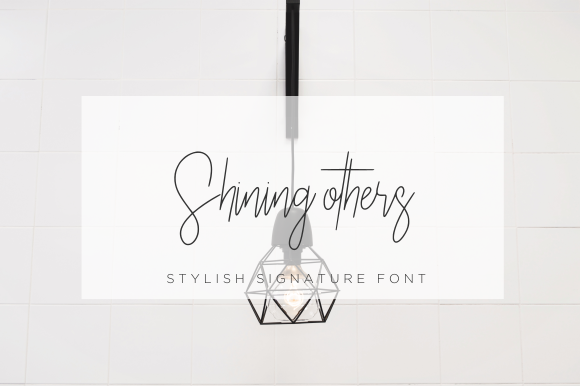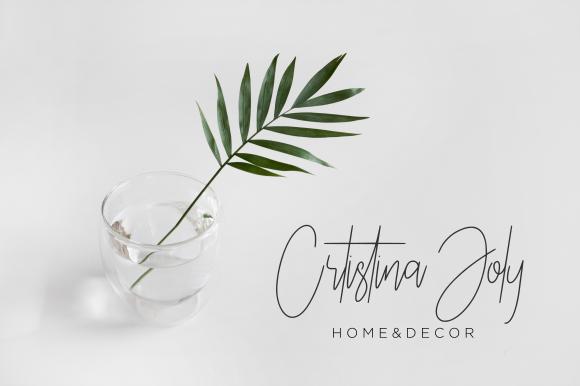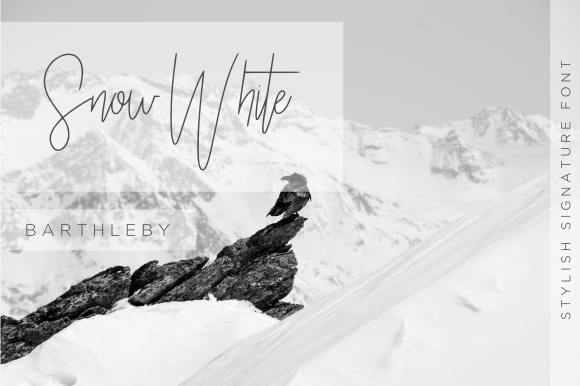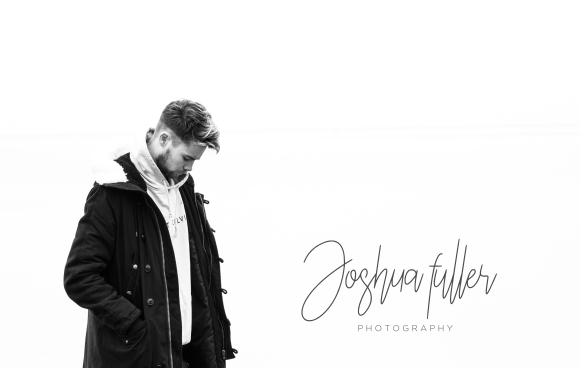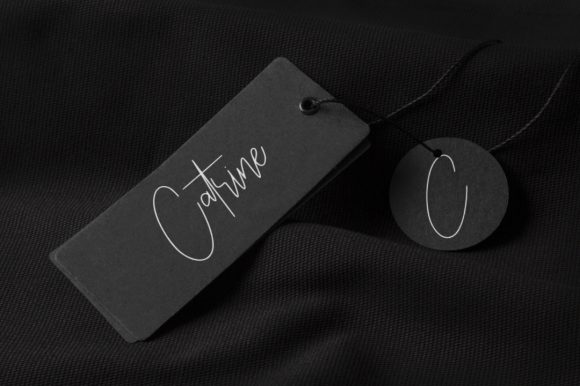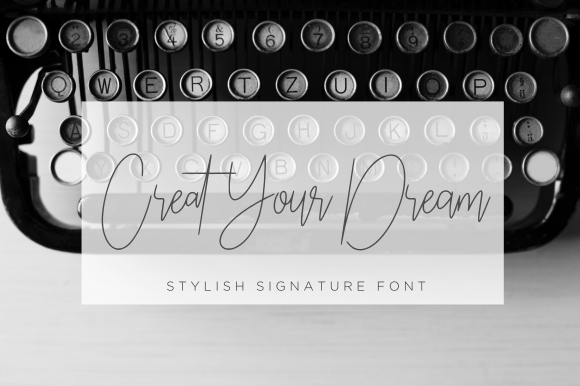
Discover the Elegance of Attaliand Font: A Beautiful Signature Typeface
Are you a designer or crafter looking for a font that exudes elegance and sophistication? Look no further than Attaliand Font, a stunning signature typeface that is sure to elevate your designs to the next level. With its clean look and exceptional readability, Attaliand Font is the perfect choice for a wide range of design projects.
What is Attaliand Font?
Attaliand Font is a beautiful signature typeface that has been carefully crafted to provide a unique and stylish touch to your designs. Its clean and sleek lines make it perfect for use in a variety of design applications, from logos and branding to invitations and packaging.
Key Features of Attaliand Font
So, what makes Attaliand Font so special? Here are just a few of its key features:
- Clean Look: Attaliand Font boasts a clean and minimalist design that makes it easy to read and understand.
- Good Readability: The font’s exceptional readability makes it perfect for use in body text, headings, and titles.
- Elegant Style: Attaliand Font has an undeniably elegant style that is sure to add a touch of sophistication to your designs.
- Versatile: This font is perfect for use in a wide range of design applications, from digital designs to print materials.
Why Choose Attaliand Font?
There are many fonts available to designers and crafters, but Attaliand Font stands out from the crowd for several reasons:
- Unique Style: Attaliand Font has a unique and distinctive style that will set your designs apart from the competition.
- Ease of Use: The font is incredibly easy to use and can be easily integrated into your design workflow.
- High-Quality: Attaliand Font is a high-quality font that is designed to provide exceptional results in your designs.
How to Use Attaliand Font in Your Designs
Using Attaliand Font in your designs is incredibly easy. Here are a few tips to get you started:
- Pair it with Other Fonts: Attaliand Font pairs perfectly with other fonts to create a unique and stylish look.
- Use it in Headings and Titles: The font’s elegant style makes it perfect for use in headings and titles.
- Experiment with Different Sizes: Attaliand Font looks great in a variety of sizes, from small body text to large headings.
Tips and Tricks for Working with Attaliand Font
Here are a few additional tips and tricks to help you get the most out of Attaliand Font:
- Pay Attention to Kerning: Make sure to pay attention to kerning when using Attaliand Font to ensure that your text looks professional and polished.
- Use it in Digital Designs: Attaliand Font is perfect for use in digital designs, including websites, social media graphics, and more.
- Experiment with Different Colors: The font looks great in a variety of colors, so don’t be afraid to experiment and find the perfect color for your design.
In conclusion, Attaliand Font is a beautiful signature typeface that is sure to elevate your designs to the next level. With its clean look, exceptional readability, and elegant style, it’s the perfect choice for designers and crafters looking for a high-quality font. Whether you’re working on a logo, branding project, or invitation, Attaliand Font is sure to provide exceptional results.